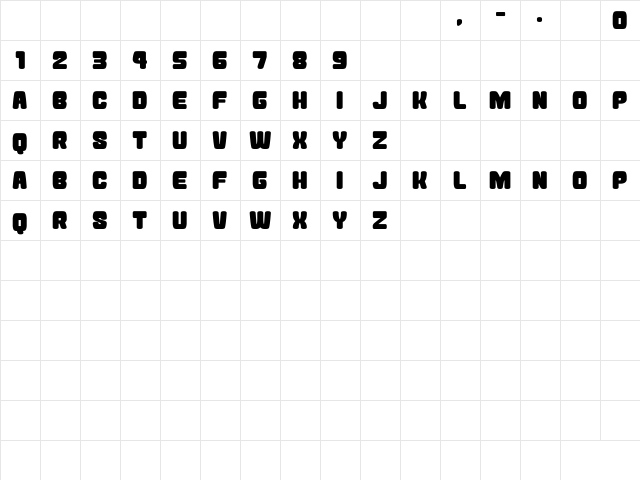
Atama Simple Regular
Design Context for Atama Simple Typeface
Atama Simple is a composed and adaptable typeface that performs quietly and consistently across a wide range of design contexts.